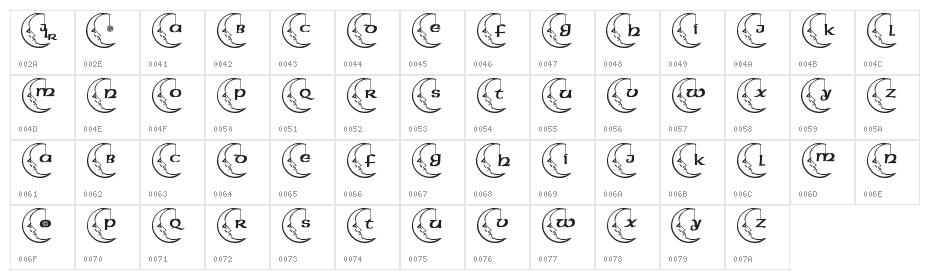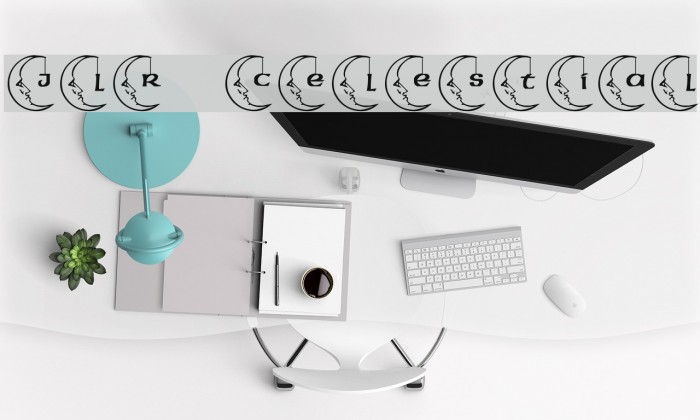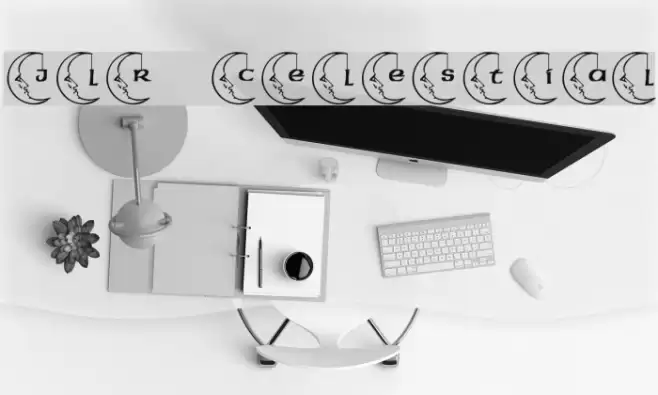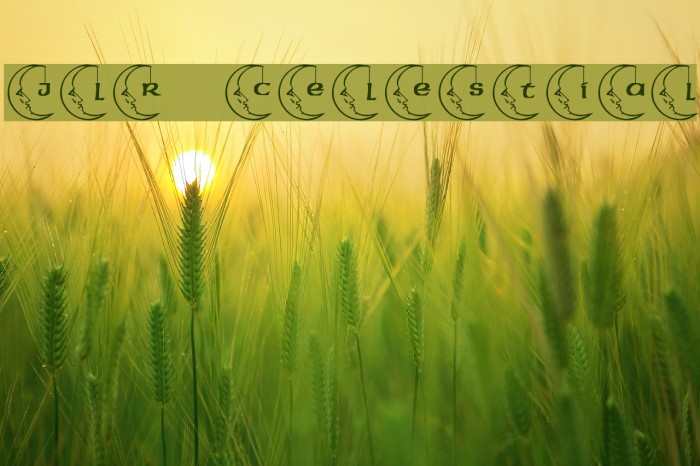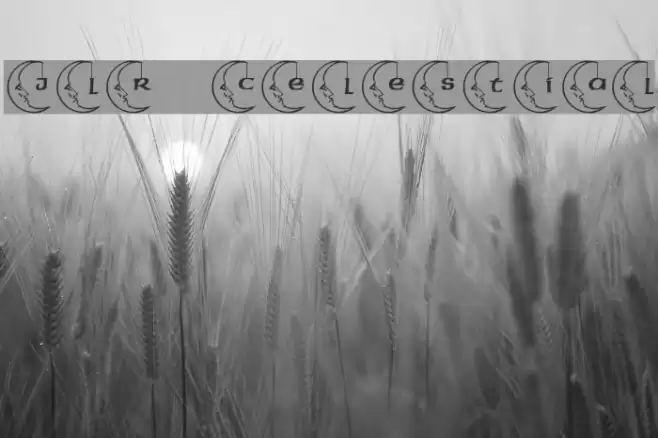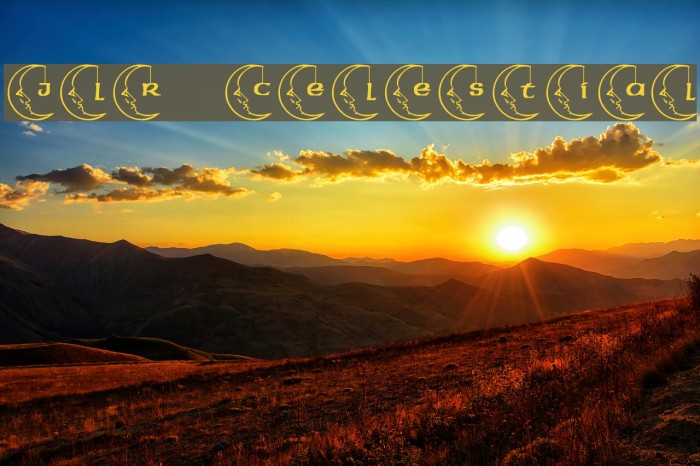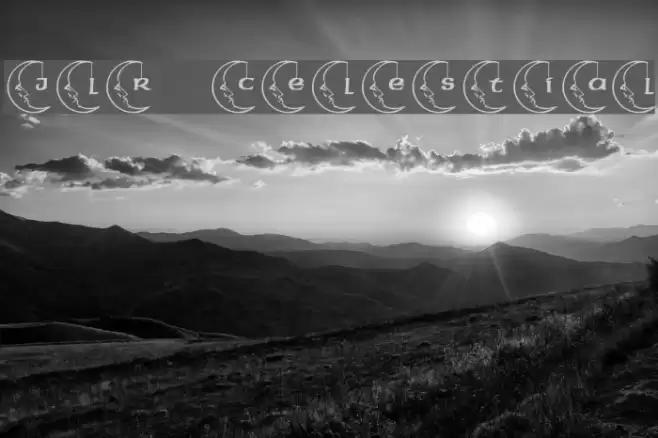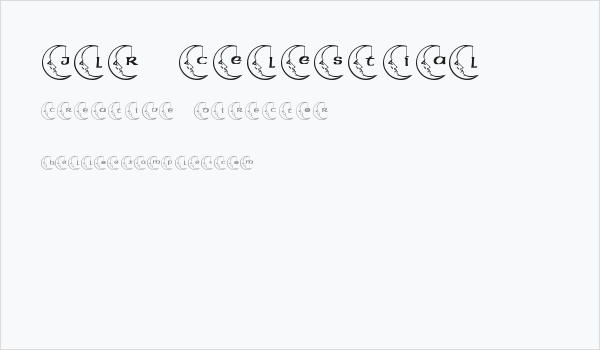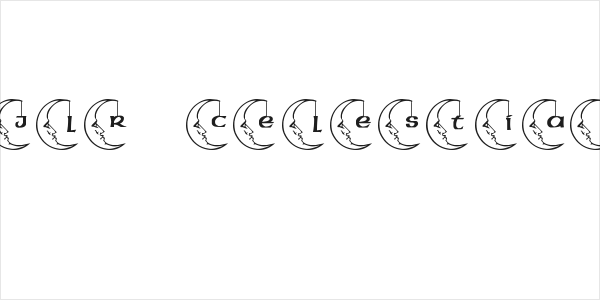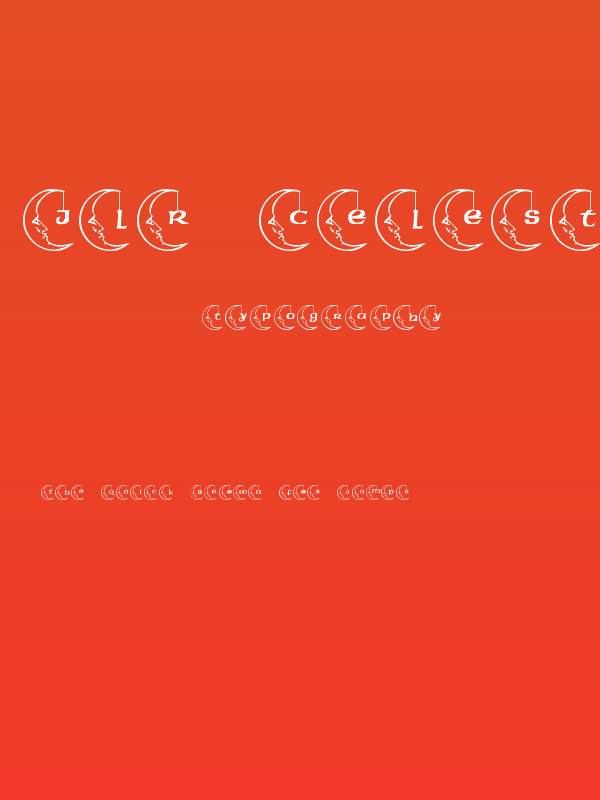
JLR Celestial Font
JLR Celestial Description
This decorative font features a unique celestial theme, where each character is encased within a crescent moon shape. The design incorporates a face profile within the moon, adding an artistic and whimsical touch. The characters themselves are bold and clear, ensuring readability despite the intricate design. This font is perfect for projects that require a mystical or fantasy element, as it combines traditional letter forms with imaginative embellishments. The consistent use of the moon motif across all characters creates a cohesive and visually appealing typeface.